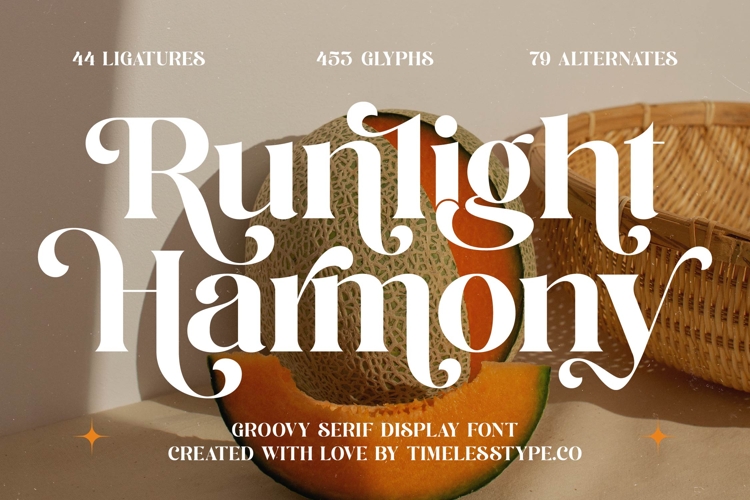
Runlight Harmony - Groovy Serif Display Font
Unlock a world of refined aesthetics with Font Runlight Harmony - Groovy Serif Display Font Serif Display, a truly captivating typeface designed to infuse your projects with unparalleled elegance and charm. This Groovy Serif Display font features flowing curves and a delightful balance of classic serif structure with a modern, artistic flair, making every headline and logo command attention with its sophisticated presence. It's ideal for designs demanding warmth and visual impact.
Experience unparalleled creative flexibility with Font Runlight Harmony - Groovy Serif Display Font Serif Display, boasting an impressive collection of 44 ligatures and 79 alternates across 453 glyphs. These extensive stylistic sets empower designers to craft unique, custom lettering that truly stands out. With its extensive multilingual support, Font Runlight Harmony - Groovy Serif Display Font Serif Display adapts seamlessly across global markets, making it incredibly versatile for international projects and ensuring your message resonates universally.
Perfectly suited for elevating your brand, Font Runlight Harmony - Groovy Serif Display Font Serif Display excels in applications such as luxury branding, exclusive packaging, high-end editorial design, and bespoke invitations. Its distinctive personality adds a touch of bespoke craftsmanship to fashion labels, wedding stationery, and gourmet product lines, ensuring your creations convey a sense of premium quality and distinctiveness.
Embrace the power of expressive typography and transform your vision with Font Runlight Harmony - Groovy Serif Display Font Serif Display. This font is an artistic statement, promising to deliver memorable and impactful designs that captivate audiences. Choose Font Runlight Harmony - Groovy Serif Display Font Serif Display to ensure your next creative endeavor leaves a lasting impression of elegance and contemporary charm.